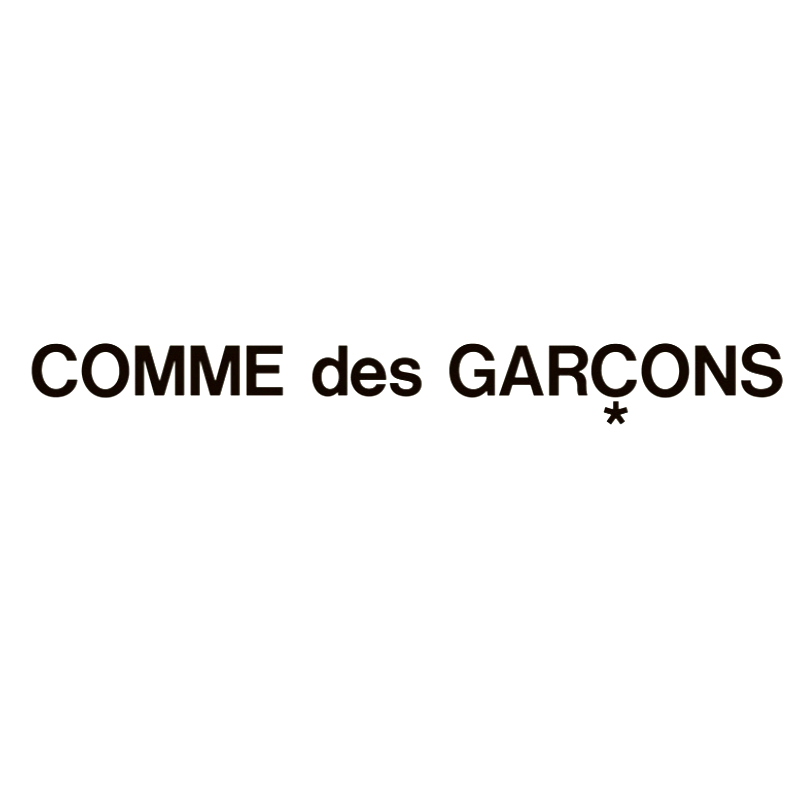
Comme des Garçons Font
ApparelComme des Garçons is a Japanese fashion brand founded by designer Rei Kawakubo in 1969. The brand also has many diffusion lines, such as PLAY, Noir, Homme Plus, Homme Plus Sport, SHIRT, Tricot, etc.
The Comme des Garçons logo is set in Helvetica Neue 75 Bold. The cedilha under the letter Ç has been replaced with the asterisk symbol (\*). For the subtitles on their website, a free font named Bohemian Typewriter by Lukas Krakora has been used.